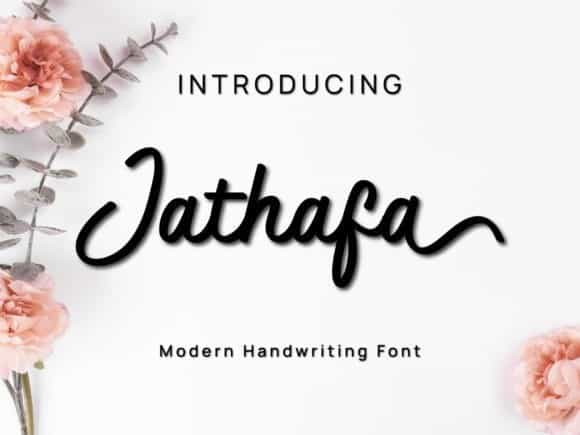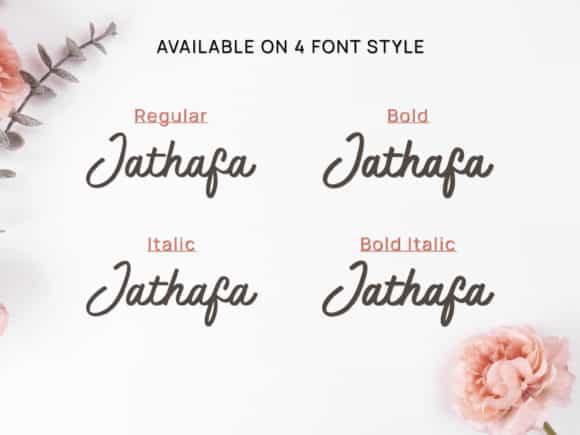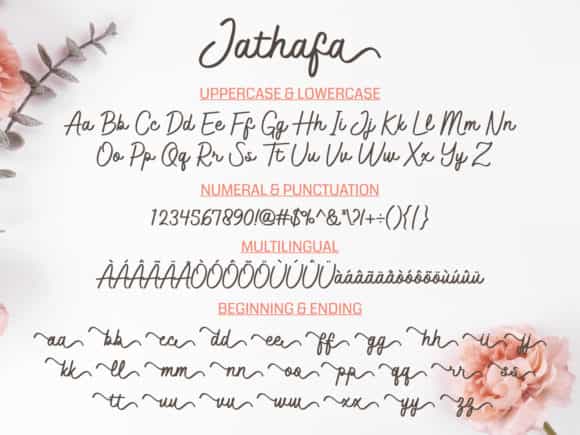
Discover Jathafa Modern Handwritten Font, part of the Calligraphy Handwritten collection—a versatile and unique font perfect for adding a personal touch to your projects. Download it for free and enjoy crafting designs with style, from invitations to social media posts. This font is available exclusively for personal use, giving you the freedom to create without limits. Unlock your creativity with Jathafa Modern Handwritten Font today!
Jathafa is a font that exudes charm and sophistication. This beautiful script typeface pays homage to calligraphy with a twist. It comes equipped with OpenType features, variations including initial and terminal letters, ligatures and full support for most Western languages.